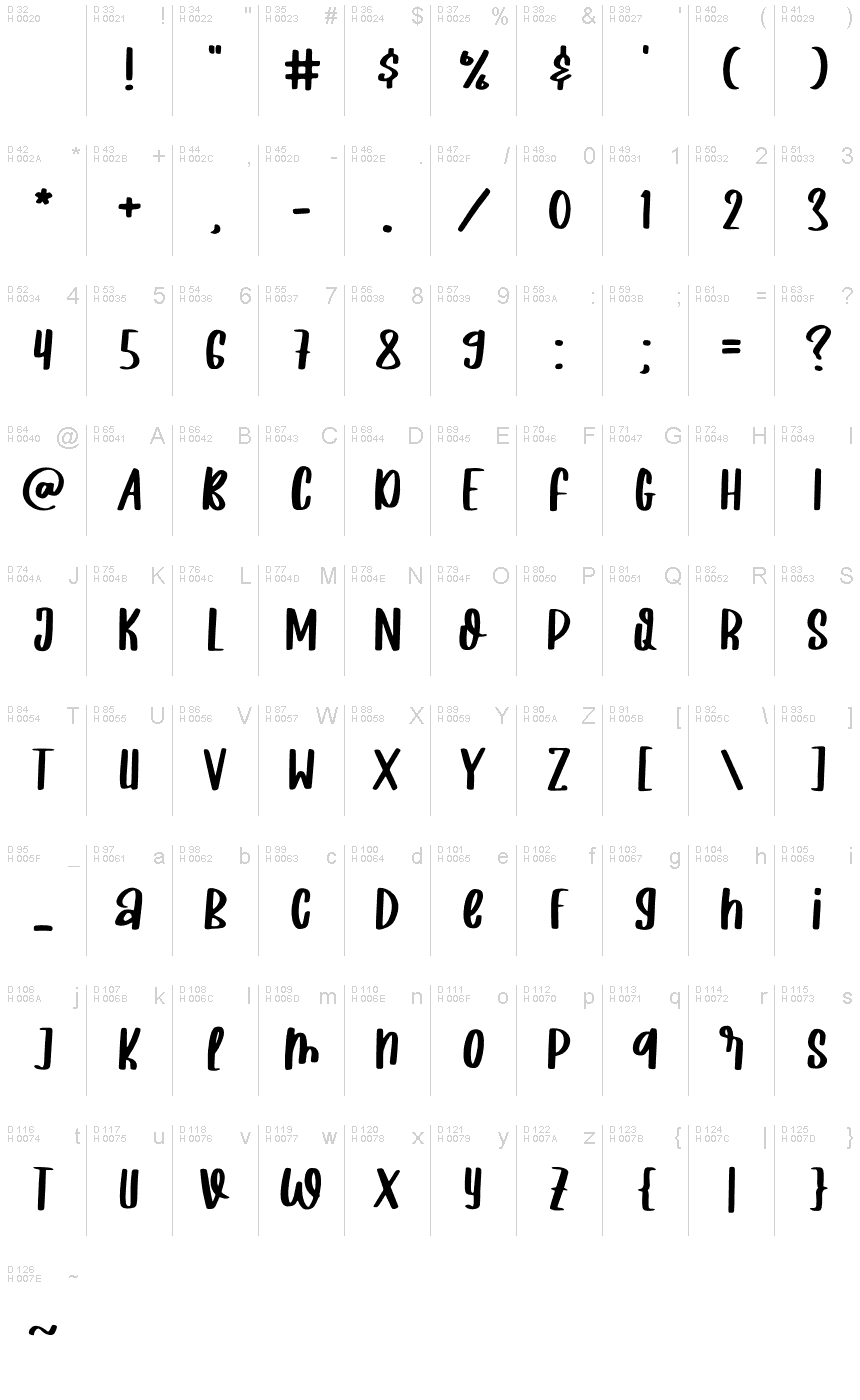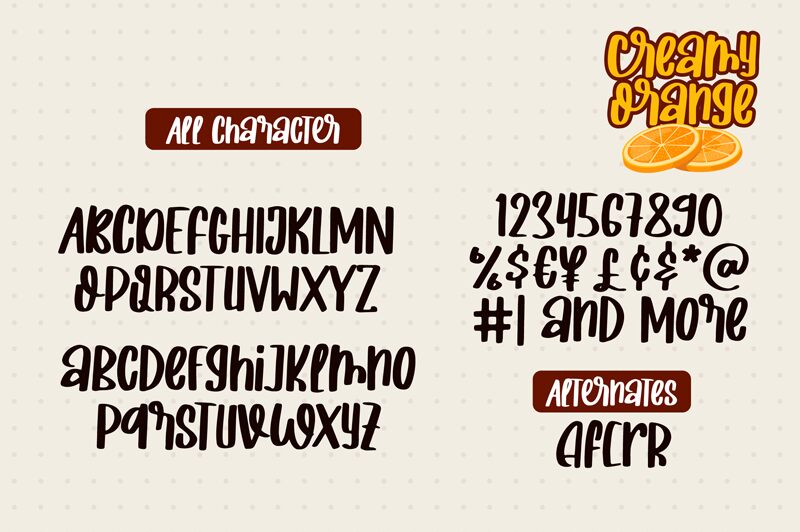
Creamy Orange
Introducing Creamy Orange, a bold and condensed handwritten font designed by Ghazi Humam Fauzan. Its unique style adds a distinctive touch to any project, from modern web designs to vintage logos, posters and much more. Its versatility makes it perfect for adding an artistic flair or a personal touch to your projects. Try Creamy Orange for branding, label design or invitations - the possibilities are endless!